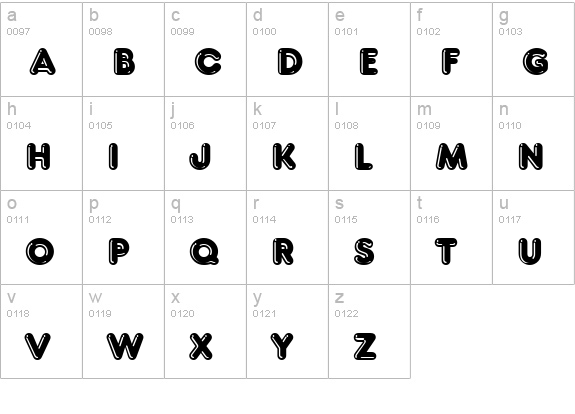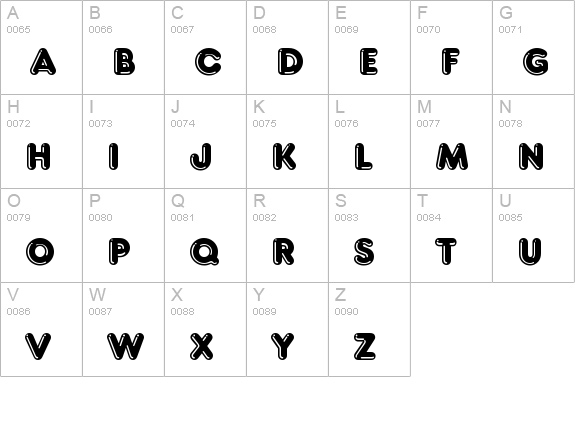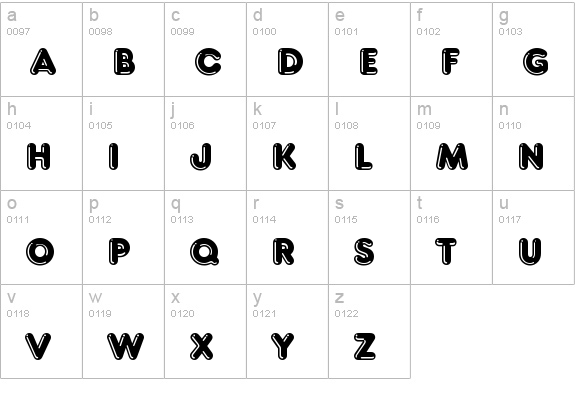
FFX Balloon Engraved Font Details
The FFX Balloon Engraved font is a whimsical and playful typeface that exudes a sense of joy and lightness. Its unique design features intricate balloon-inspired engravings that add a touch of fun and creativity to any project. Perfect for adding a touch of whimsy to invitations, greeting cards, posters, and more, this font is sure to make your designs stand out. Best of all, the FFX Balloon Engraved font is available for free download at FontsMarket.com. This means you can easily add this charming typeface to your collection without breaking the bank. Whether you're a seasoned designer looking to add some flair to your projects or a hobbyist looking to explore new fonts, the FFX Balloon Engraved font is a fantastic choice. Download it today and let your creativity soar!